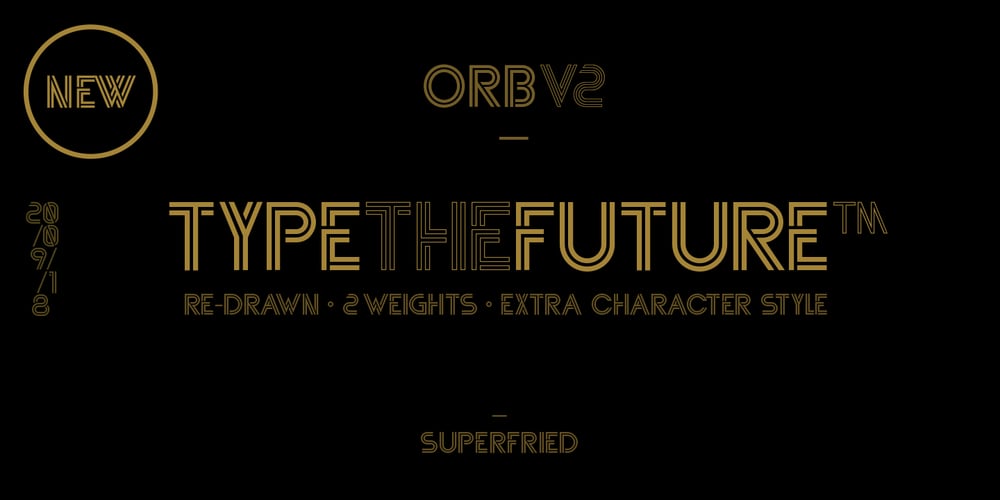
Orb Font Family was designed by published by Superfried. Orb contains 2 styles and family package options. Orb by Superfried has been re-released. Now re-drawn and improved the elegant, geometric uppercase display typeface now also includes a secondary character set activated via the shift key. The glyphs are constructed from two concentric paths featuring intricate interactions and angled incisions, which lead to a very distinct look and feel. Orb includes 266 glyphs in two character and is available in two weights: display and outline.